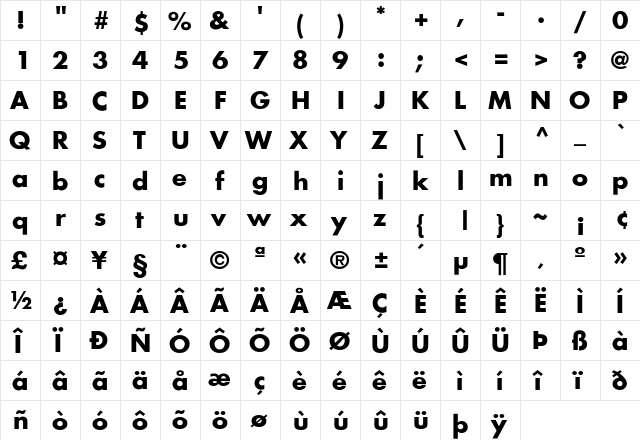
Silverleaf Bold Bold
Design Context for Silverleaf Bold Typeface
Silverleaf Bold takes a measured approach to typography — its balanced proportions and neutral character make it a reliable workhorse for both digital and print work. Its bold stroke weight gives it real presence on the page.